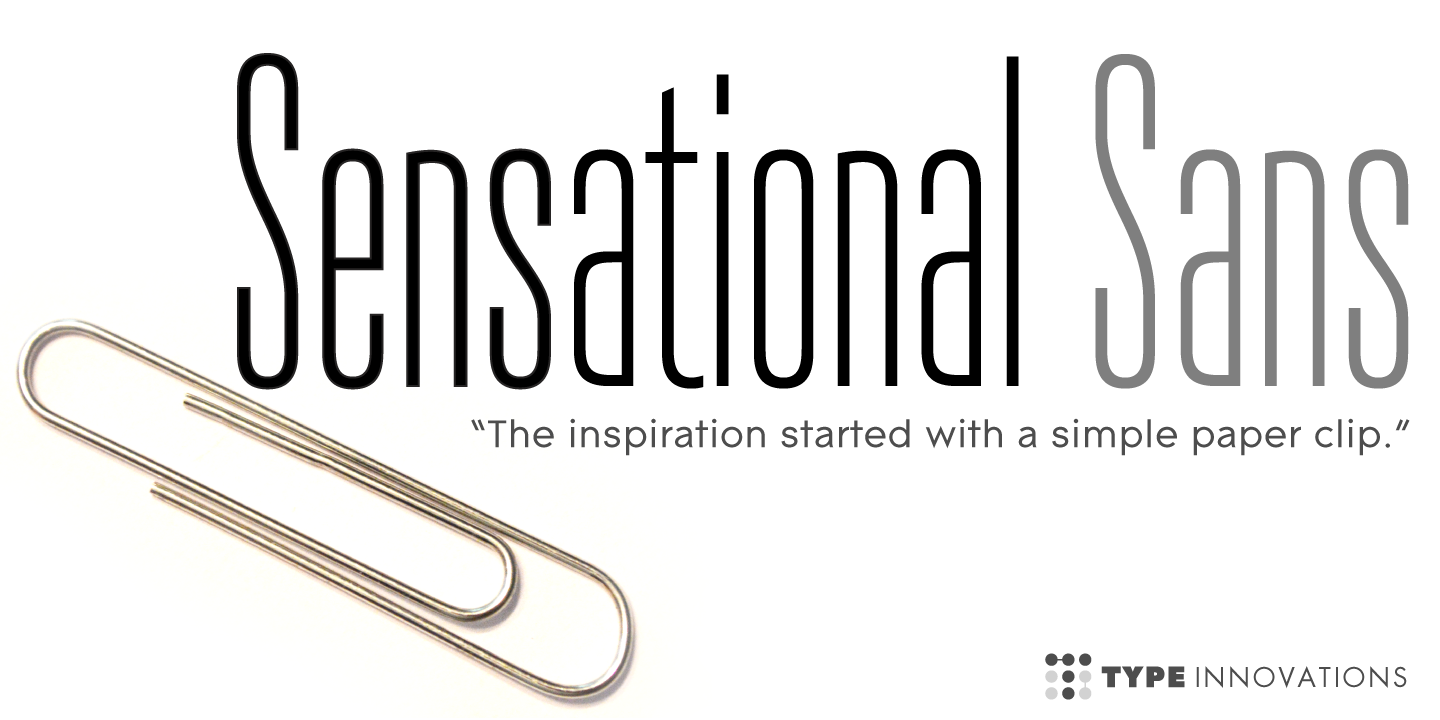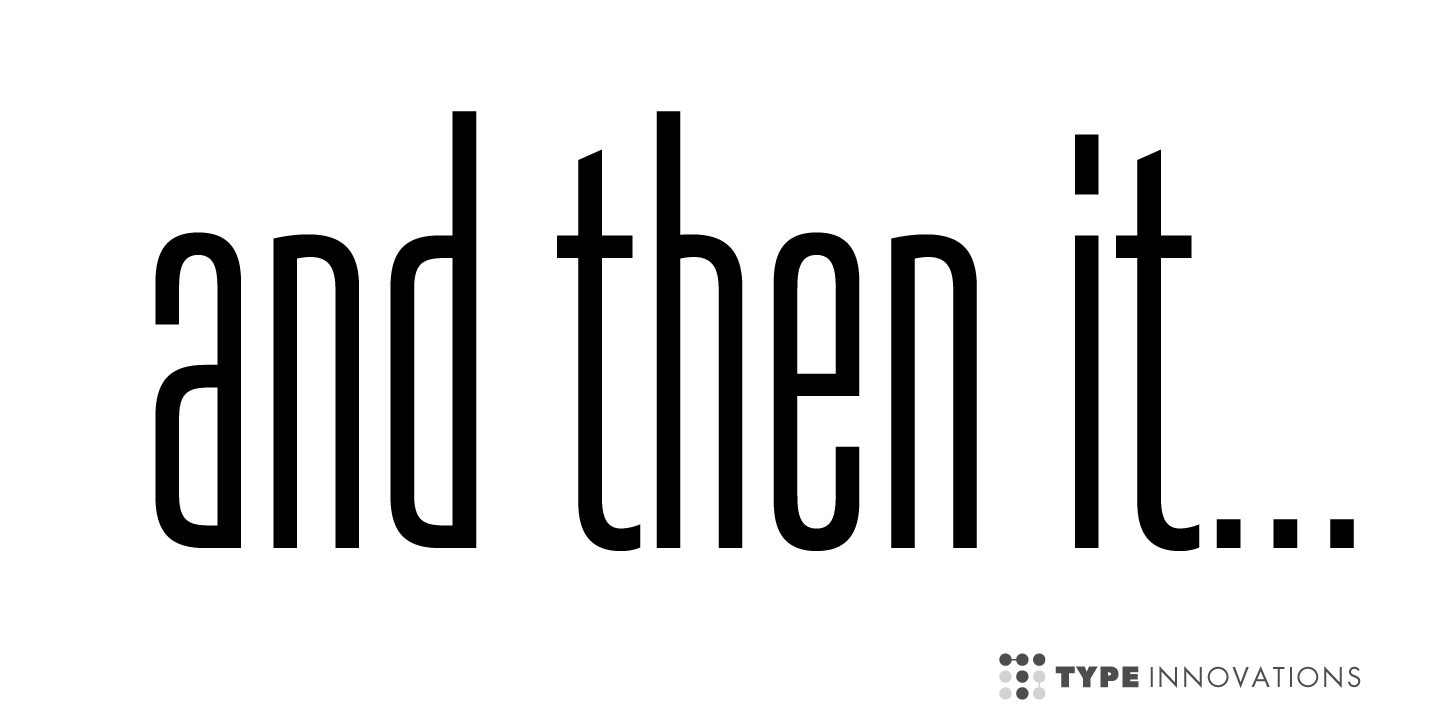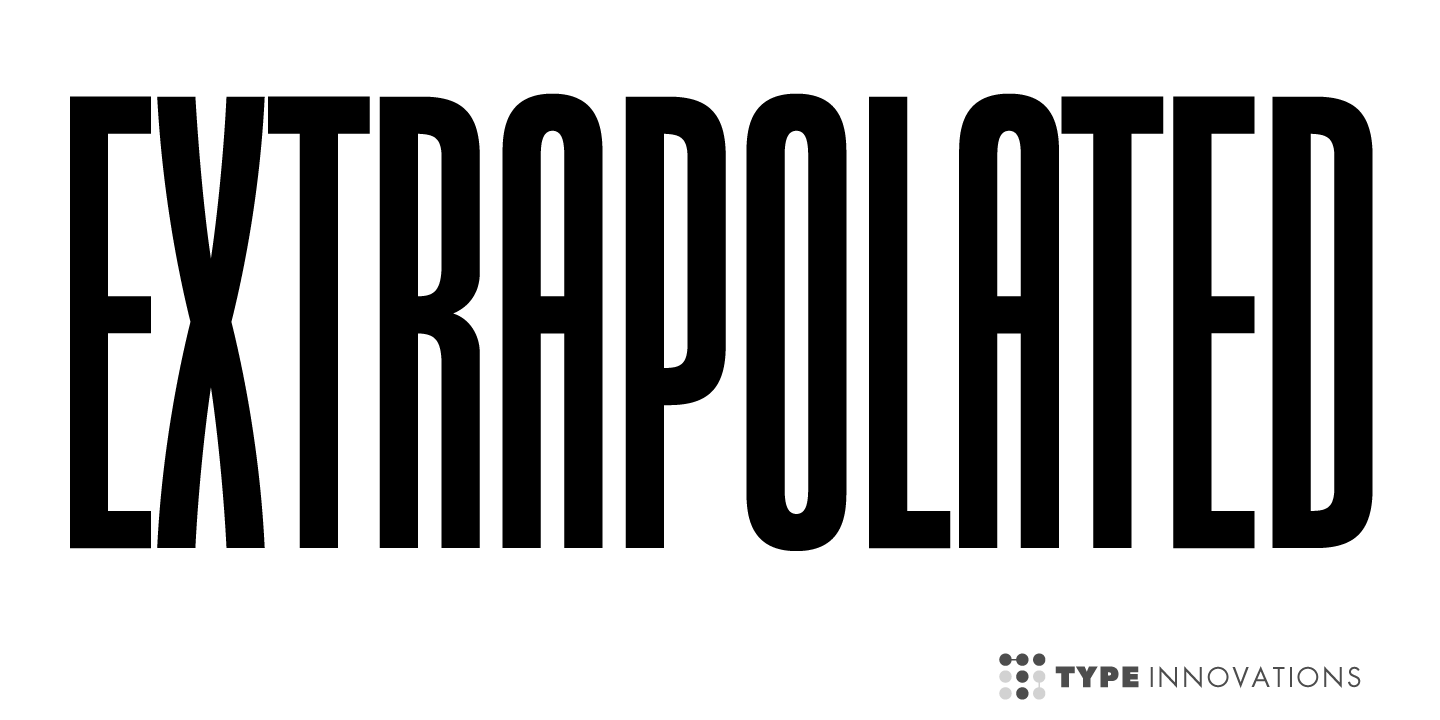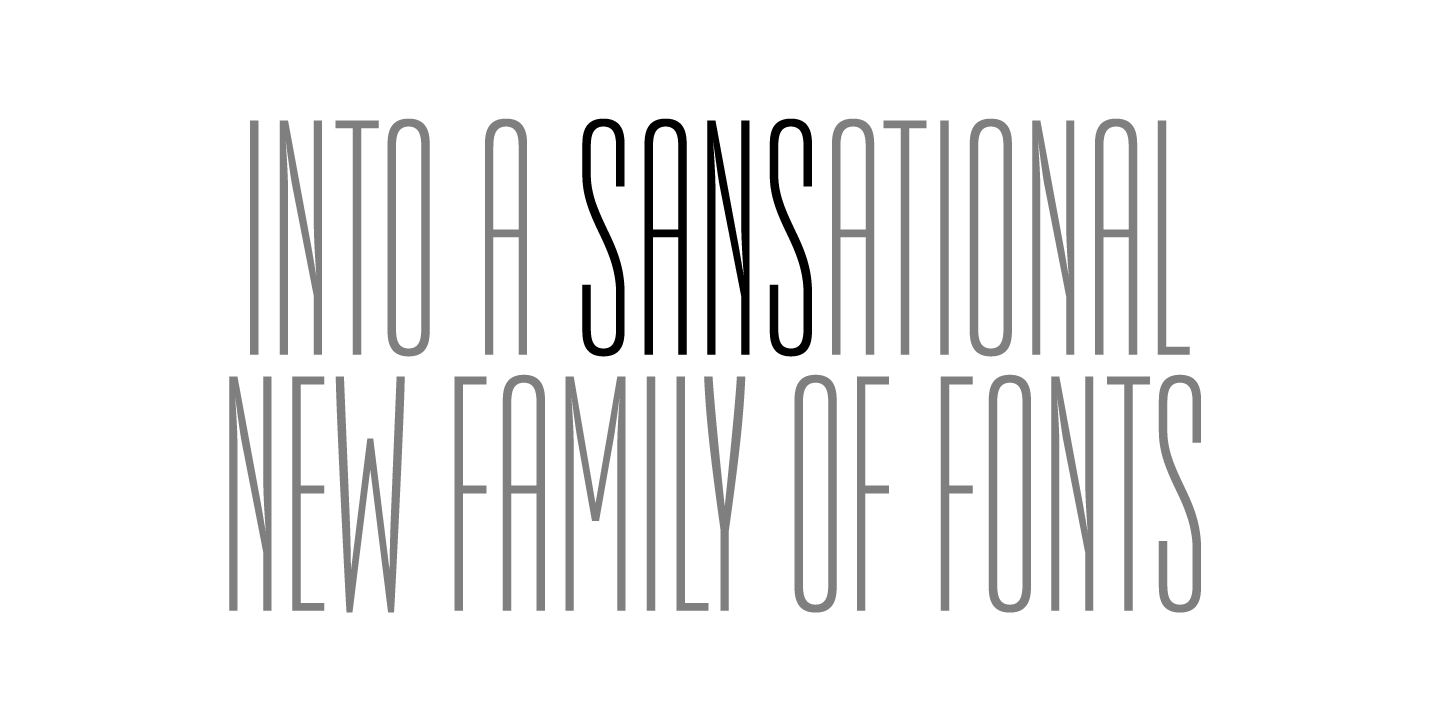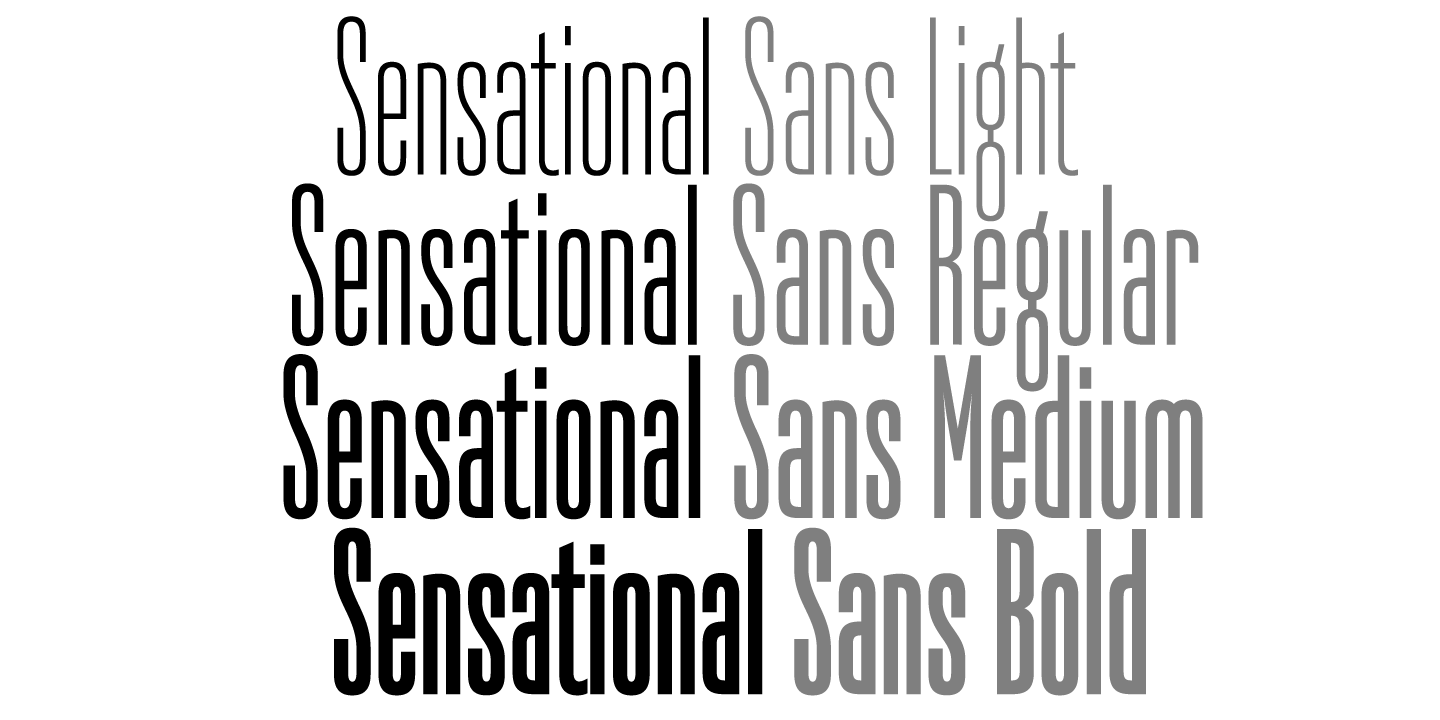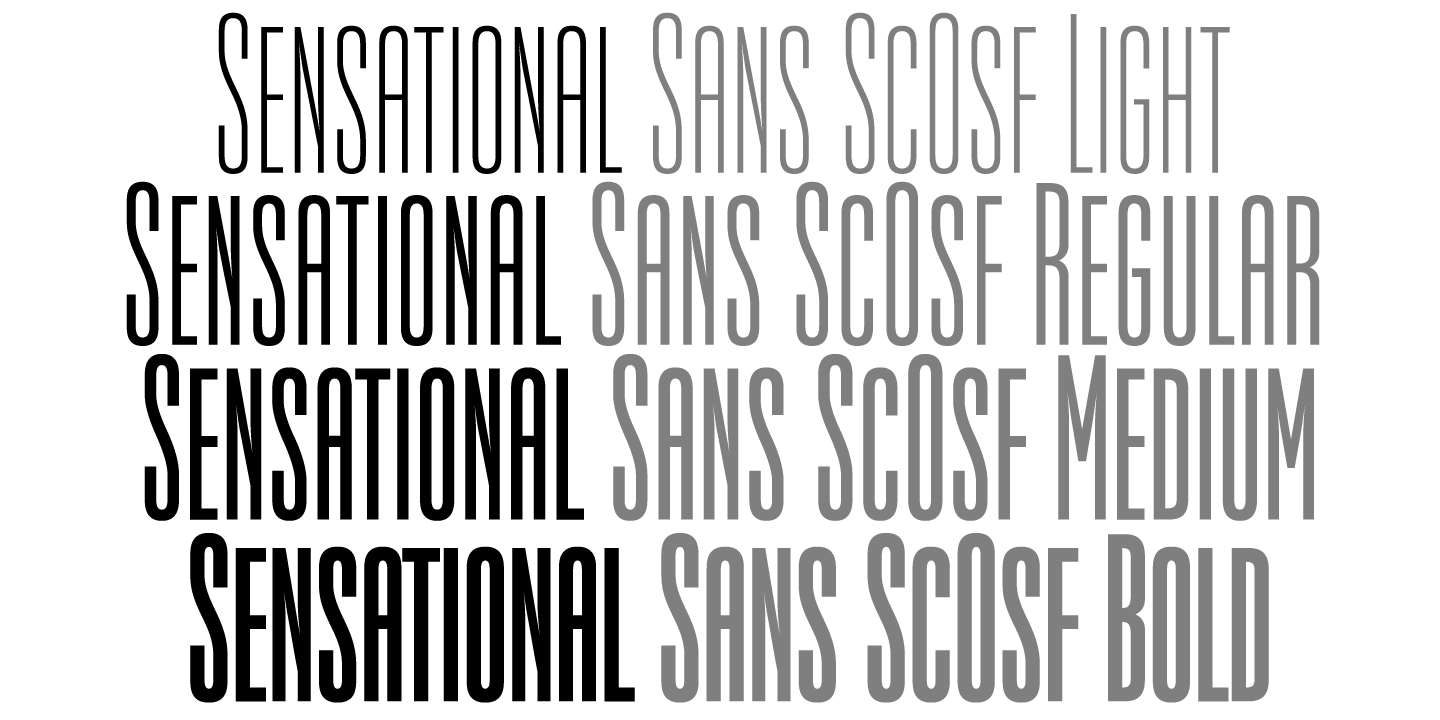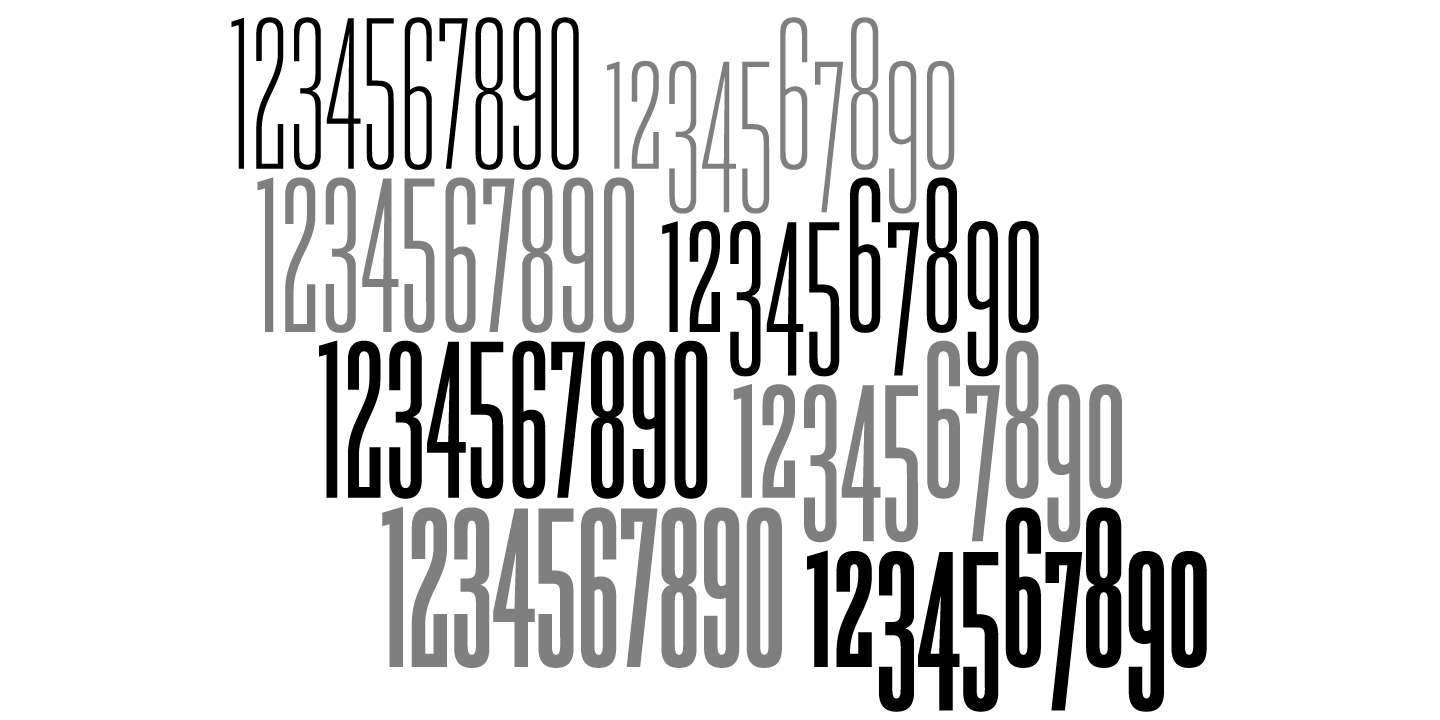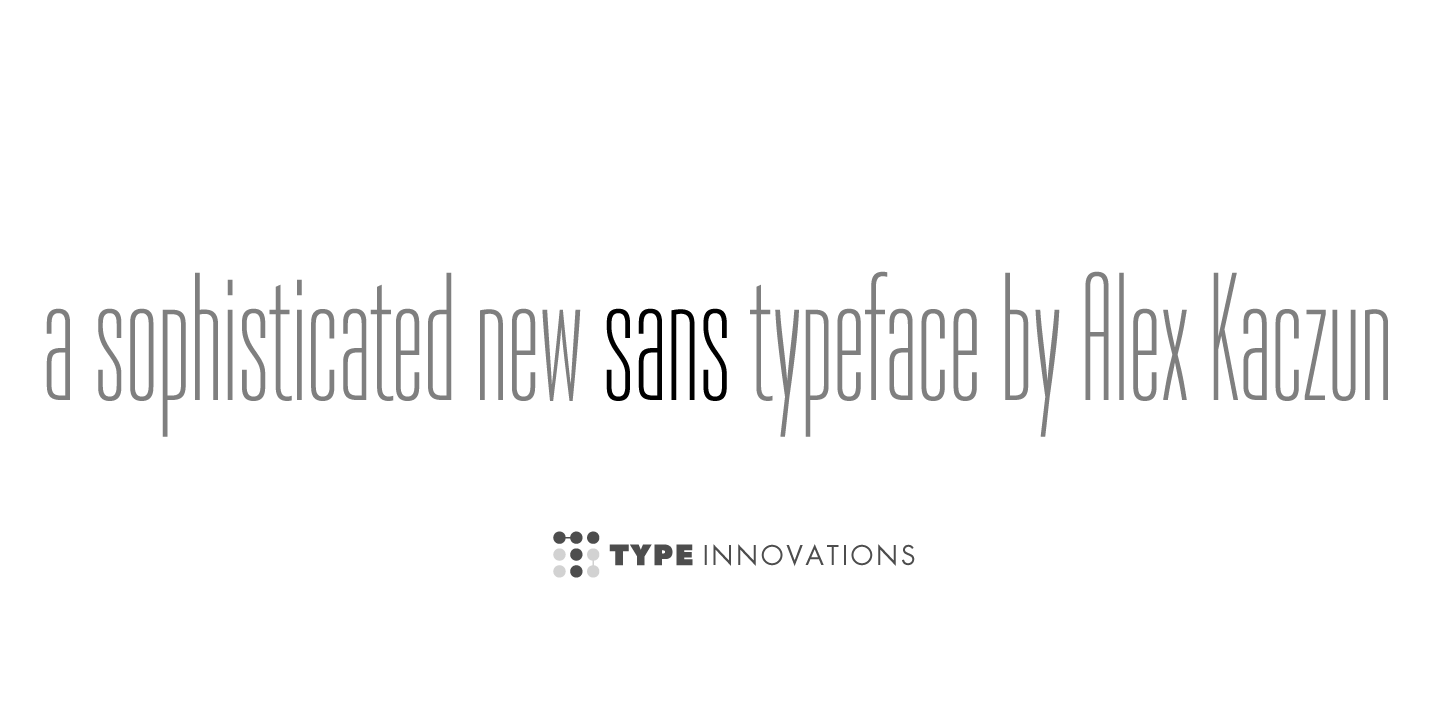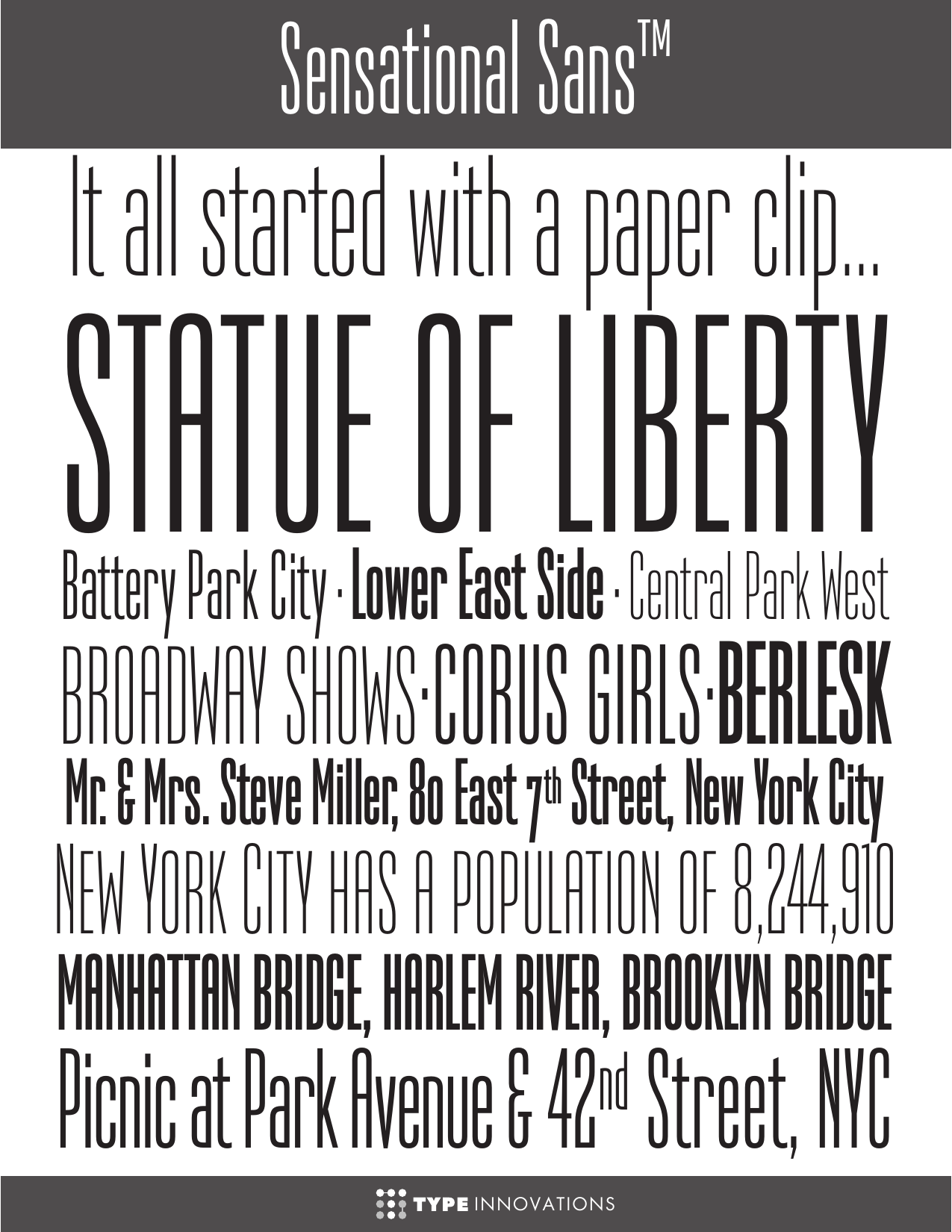
Sensational Sans Collection
Sensational Sans
Regular"Sensational Sans" is an original design by Alex Kaczun. The inspiration started with the shape of a "paper clip". Simple and elegant. A condensed sans serif that's, well... just sensational!
It's a delight to use and view. Great for advertising, large headlines, web applications, and well... just about anything. Works equally well in a broad range of text point sizes. Comes in 4 delightful flavors—Light, Regular, Medium and Bold.